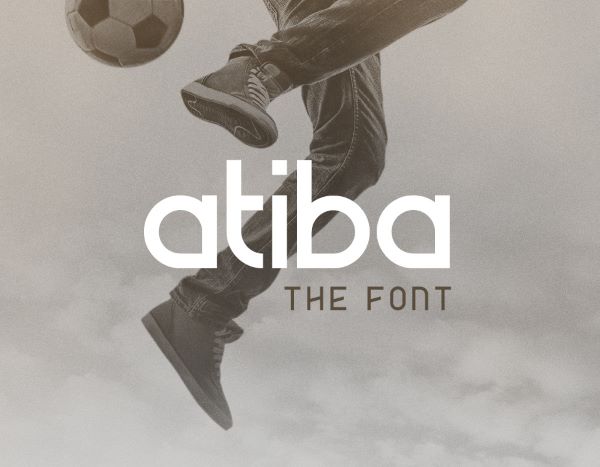
Atiba Font
Atiba by Ozan Karakoc is a geometric display typeface built around a precise and deliberate tension: perfect circular curves meeting solid straight lines to produce a letterform system that feels both technically resolved and full of kinetic energy. Free for personal and commercial use.